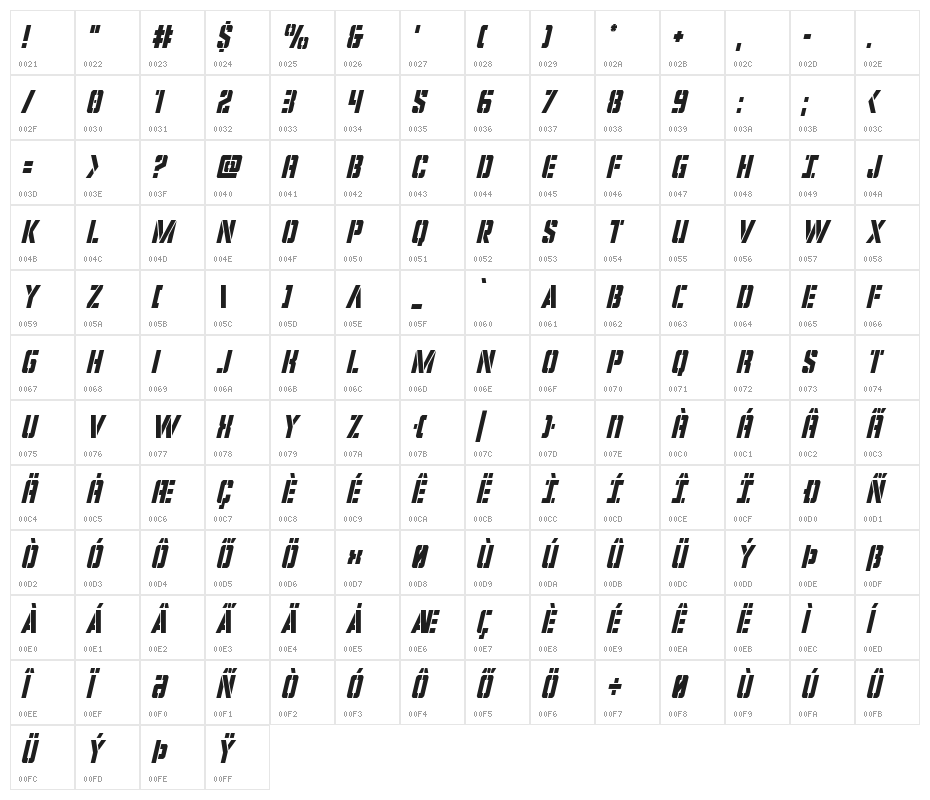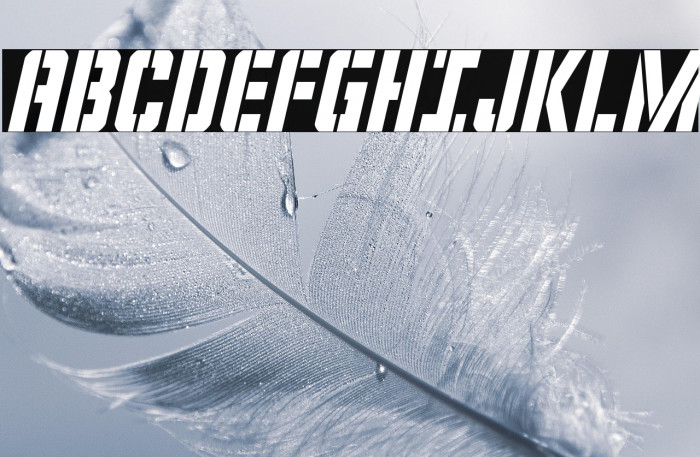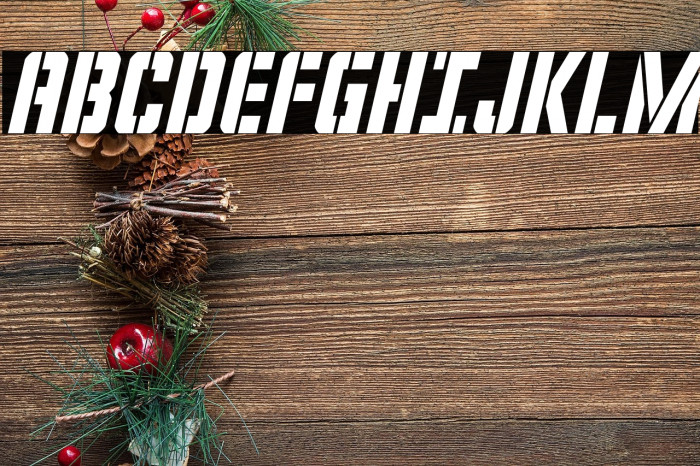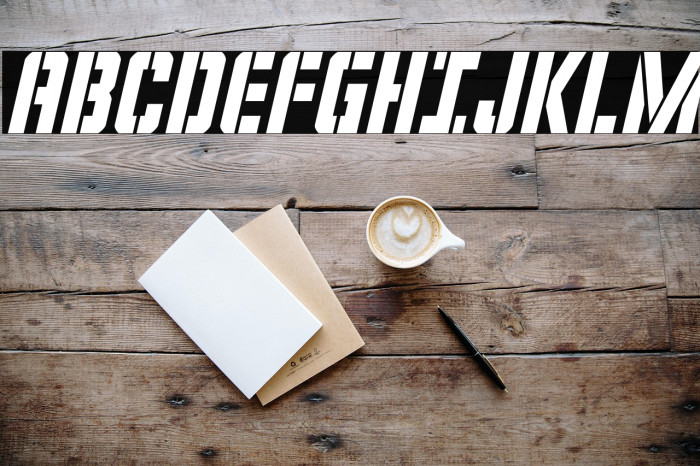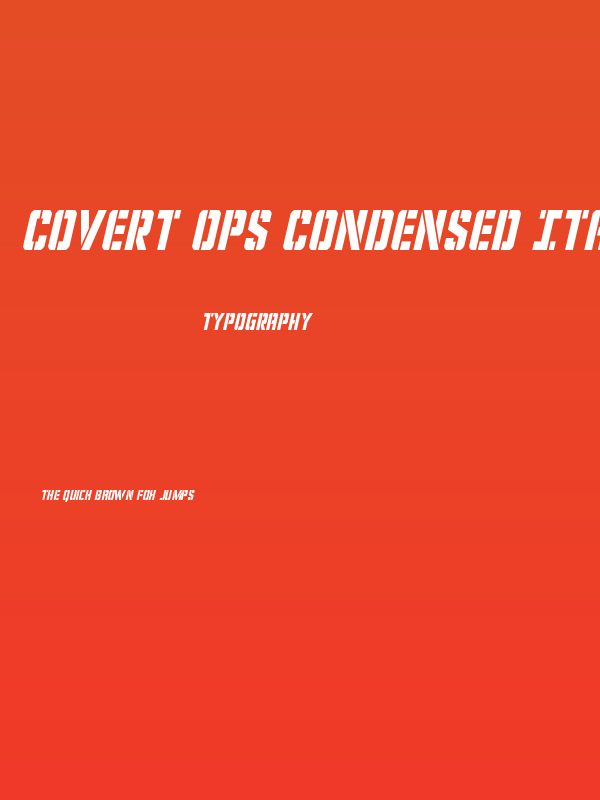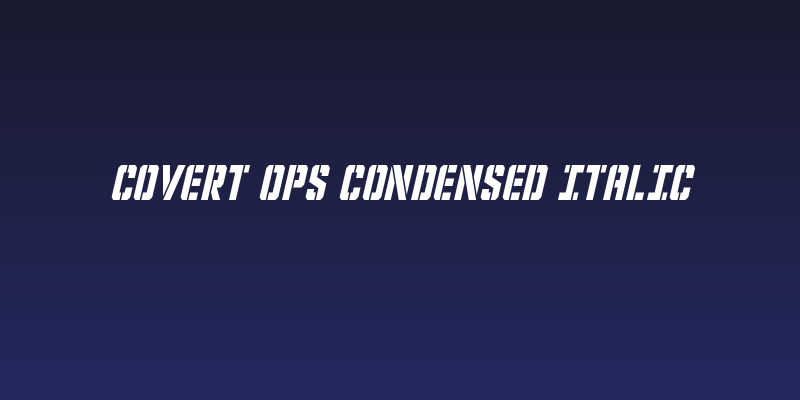
Covert Ops Condensed Italic Font
Covert Ops Condensed Italic Description
This font features a bold and dynamic design with a condensed and italicized style. The characters are sharply angled, giving a sense of motion and urgency. The uppercase and lowercase letters maintain a consistent height, enhancing readability while preserving the font's unique aesthetic. The numbers and special characters are designed to match the overall style, ensuring uniformity across different uses. The font's strong geometric shapes and slanted orientation make it ideal for projects that require a modern and edgy look.
| Proposed Projects | Ideal for use in action-themed posters, video game titles, branding for sports teams, or any project needing a bold and energetic typeface. |